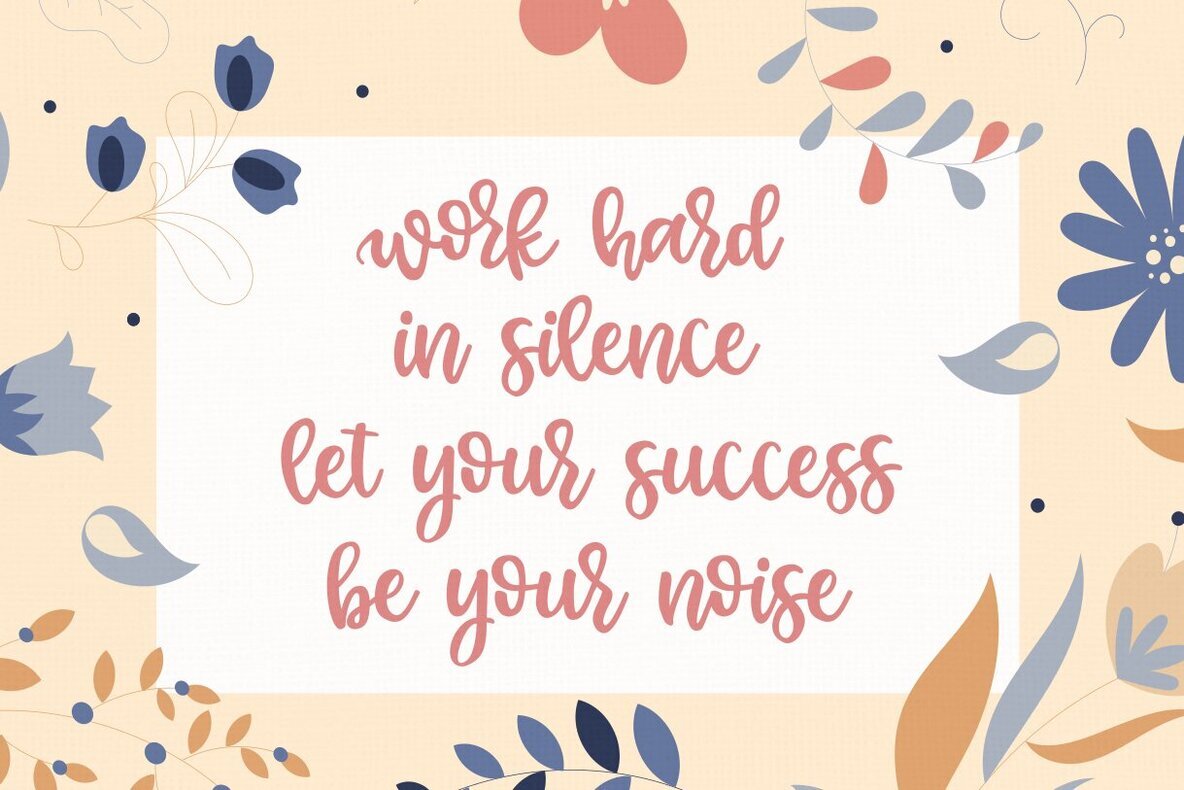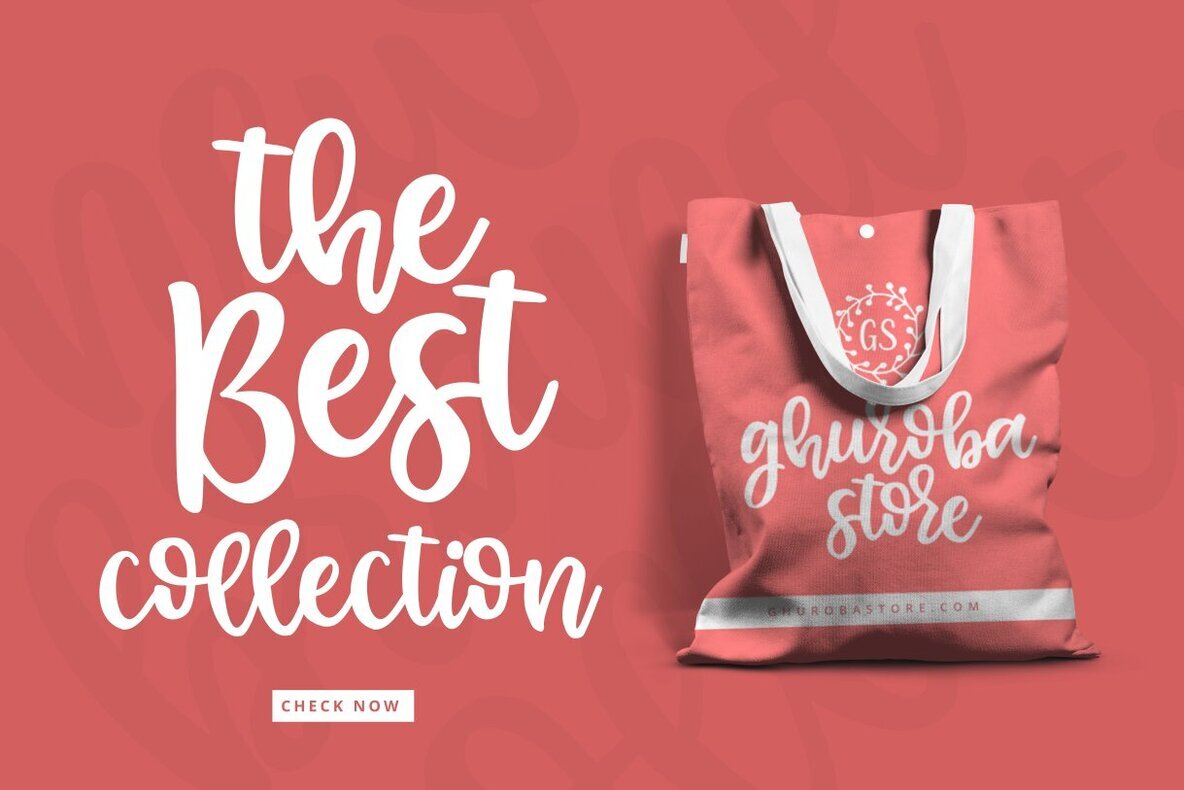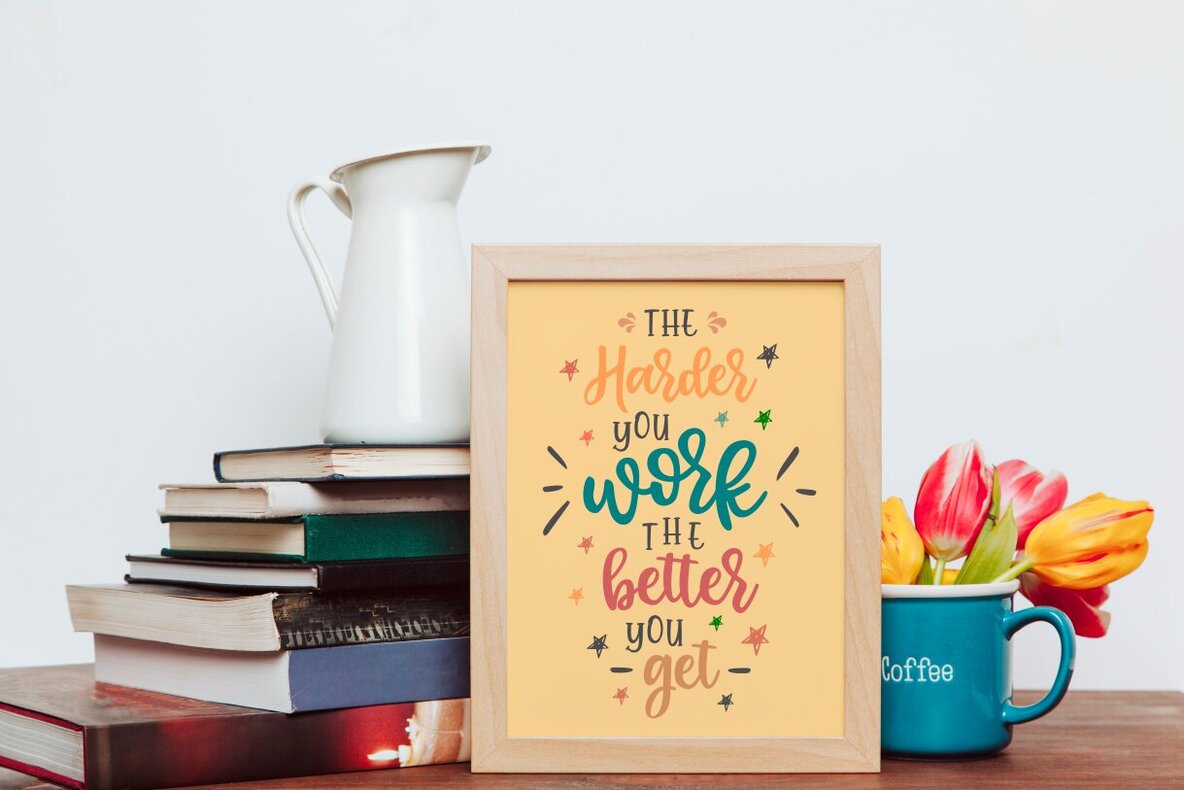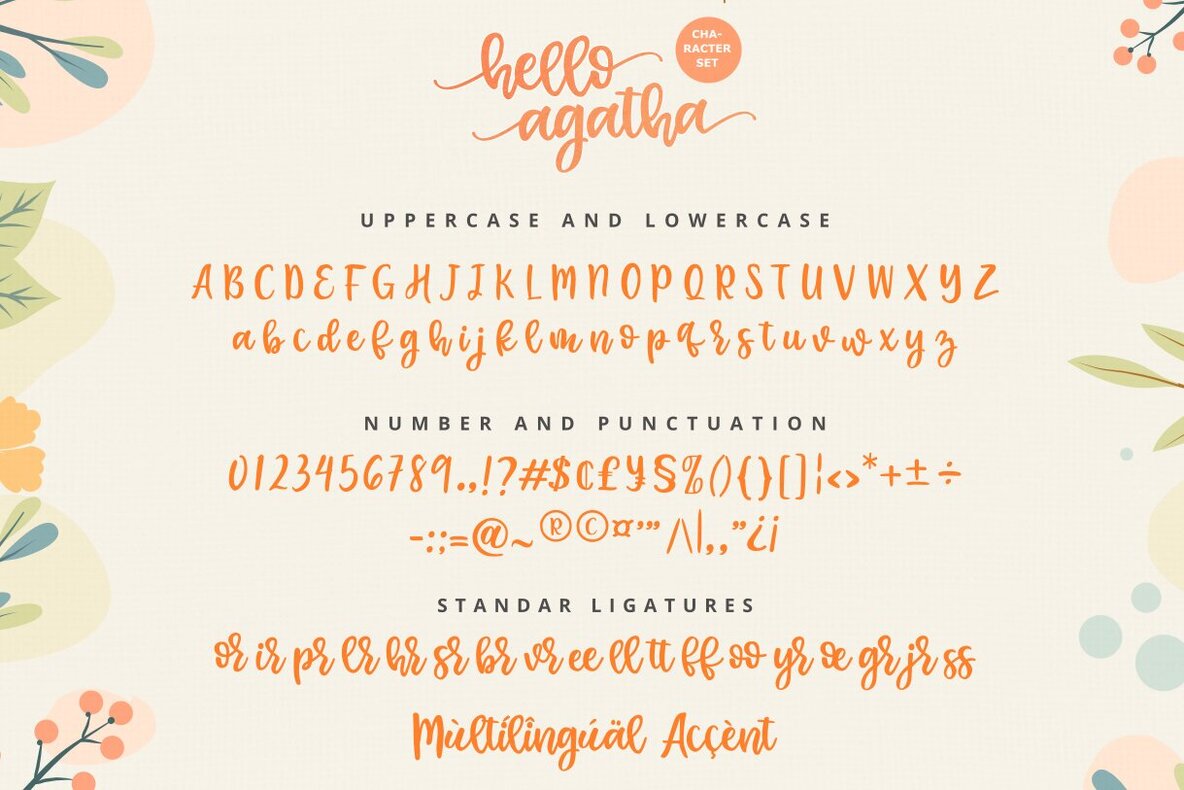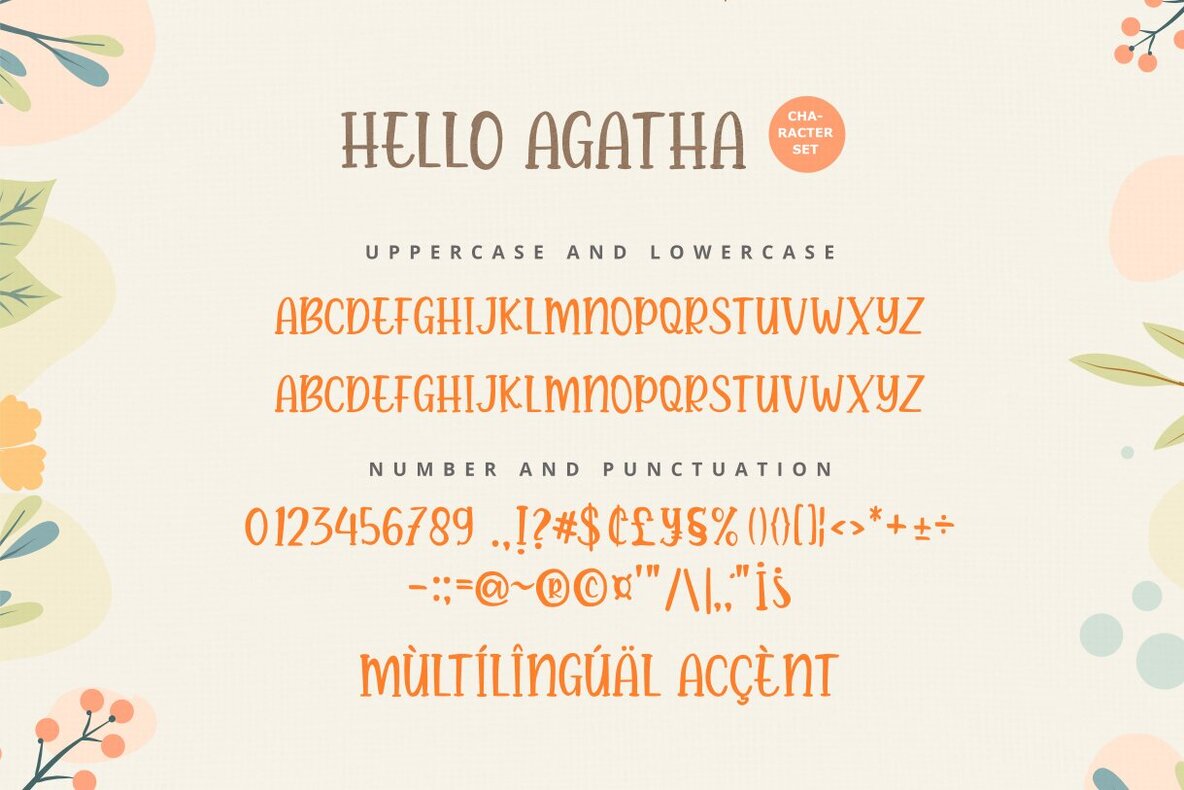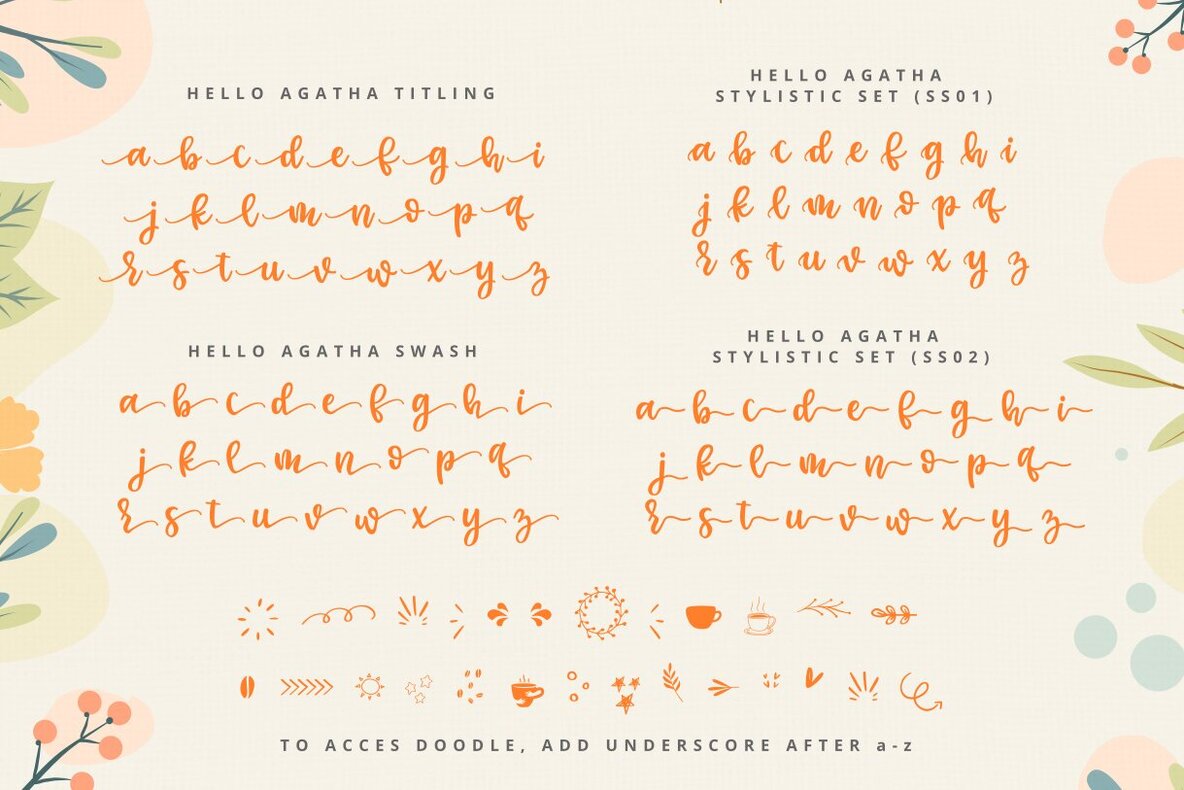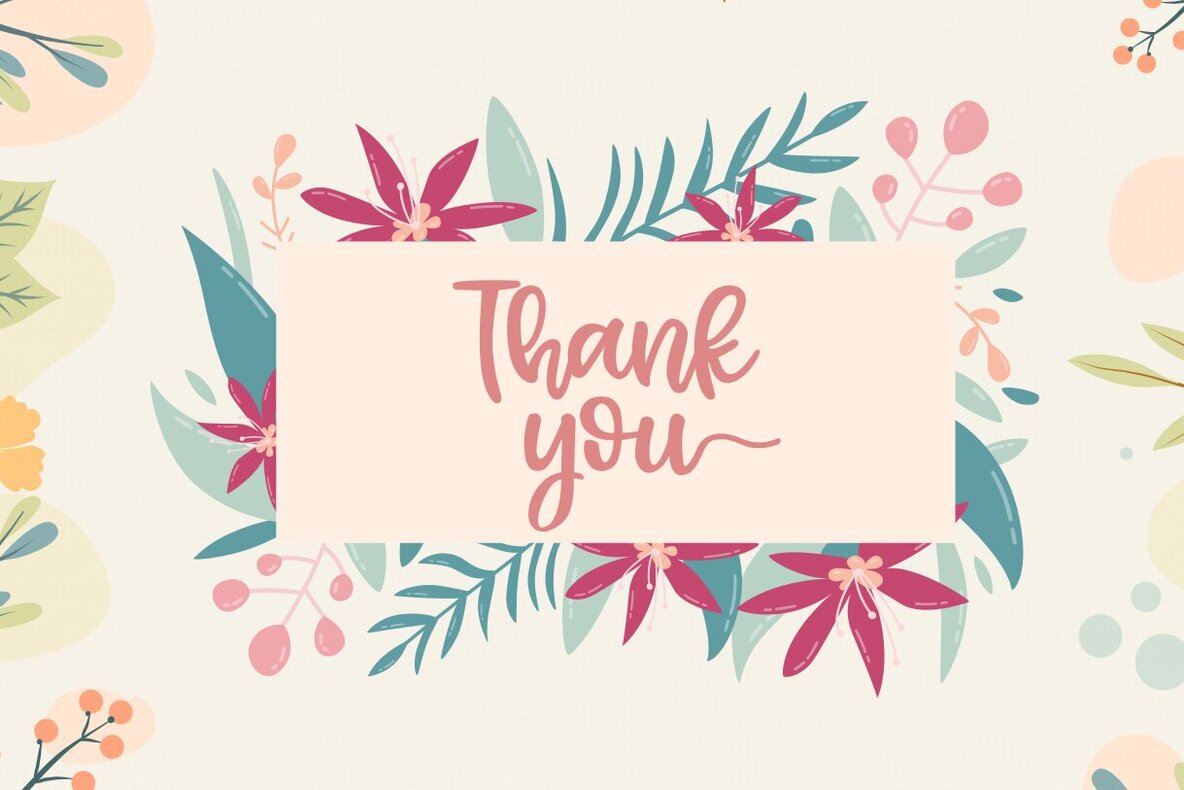
Hello Agatha Font
Hello Agata Script
Hello Agatha Serif
Hello Agatha offers a captivating blend of style and functionality, featuring a delightful script and a playful caps serif font. Perfectly suited for diverse applications, from t-shirt graphics and quotes to brand design and social media content. When paired with its accompanying illustrations, Hello Agatha transforms into a vibrant tool for crafting unique typographic designs, logos, and seasonal greetings.Hello Agatha: A Charming Font Duo With Illustrations